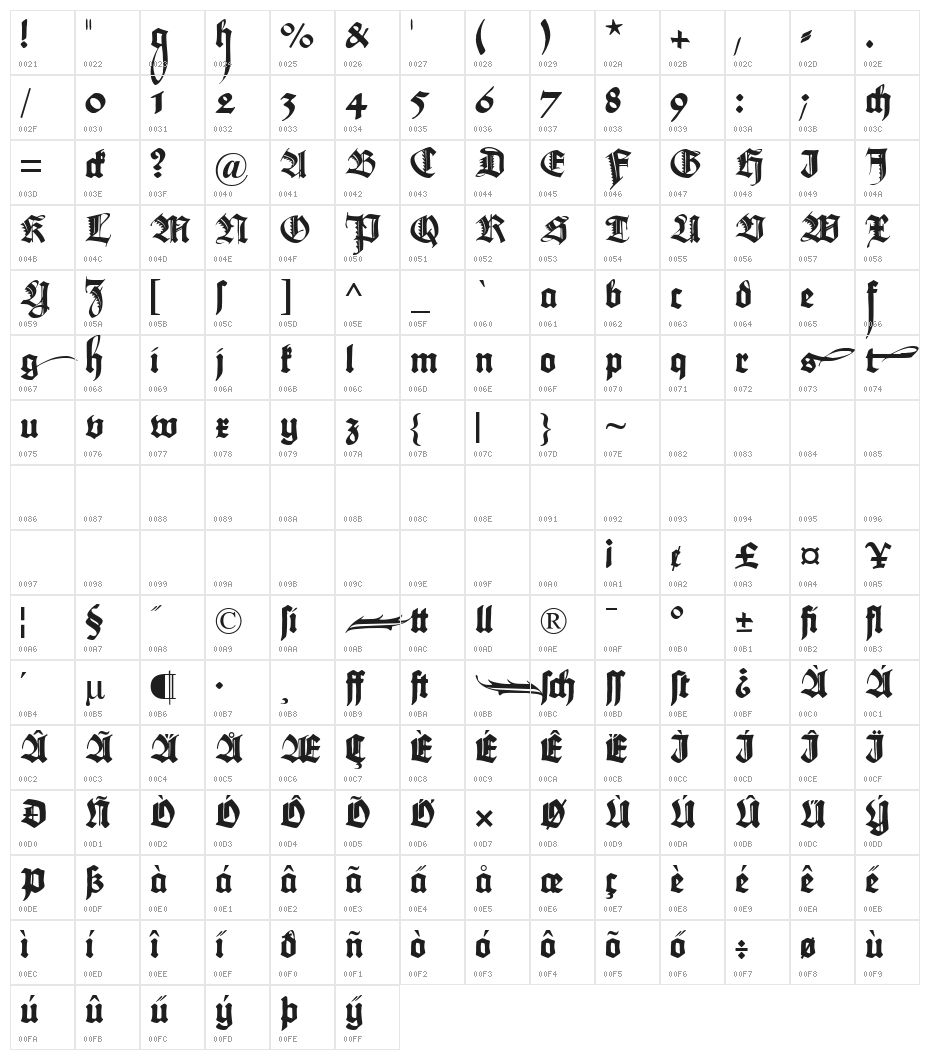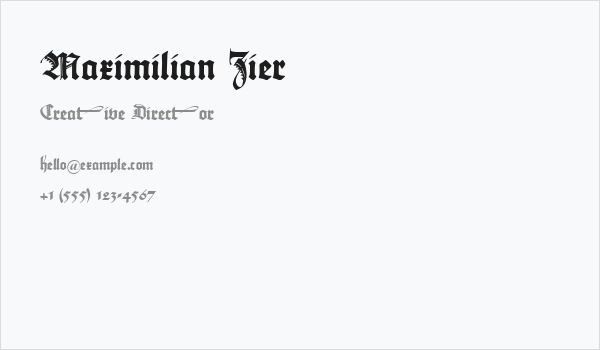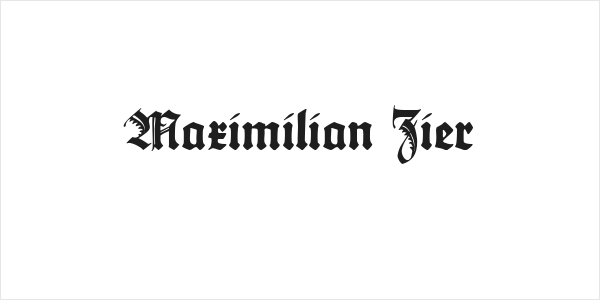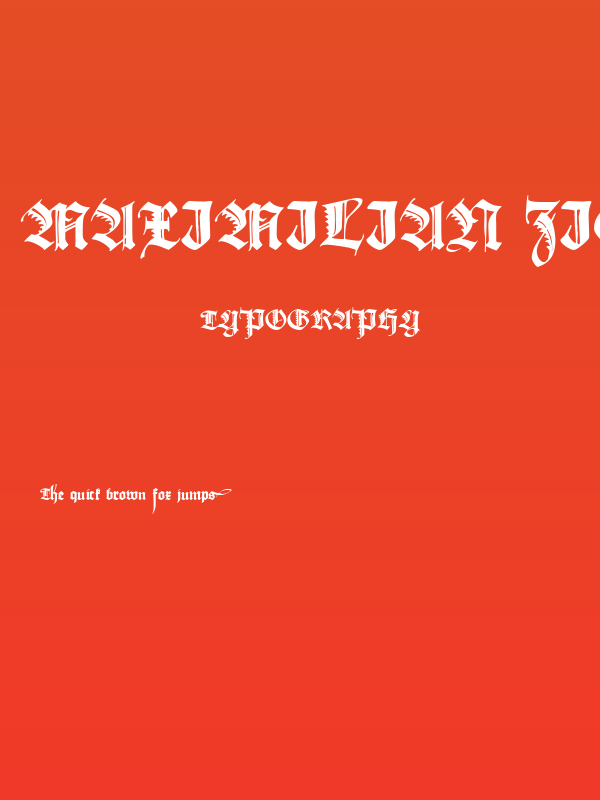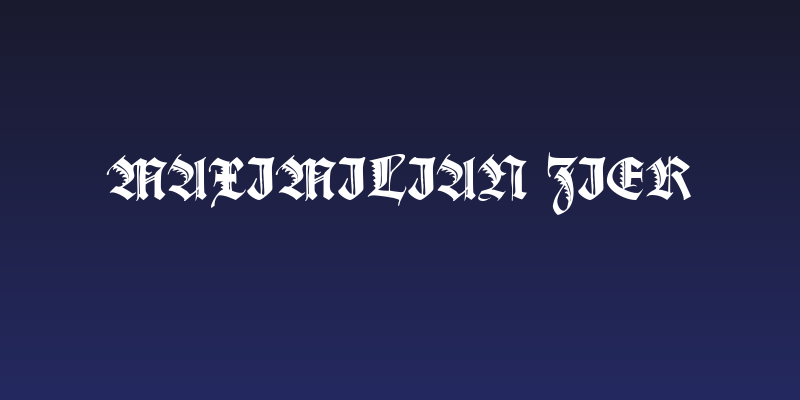
Maximilian Zier Font
Maximilian Zier Description
This font is a striking example of Blackletter style, characterized by its intricate and ornate design. The uppercase letters are bold and angular, with sharp serifs and elaborate flourishes that give them a dramatic appearance. The lowercase letters maintain the same level of detail, with sweeping curves and pointed edges that enhance the font's gothic aesthetic. The numerals are equally stylized, featuring unique shapes that complement the overall theme. Special characters are designed with the same attention to detail, ensuring consistency throughout the typeface. This font is perfect for projects that require a historical or medieval touch, such as themed event invitations, book covers, or branding for vintage-inspired products.
| Proposed Projects | Ideal for themed event invitations, book covers, or vintage-inspired branding. |